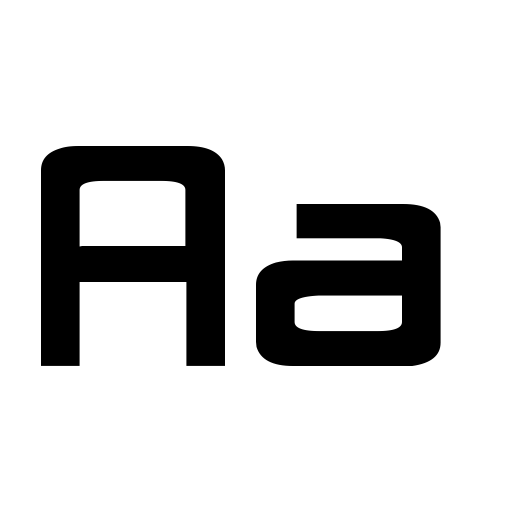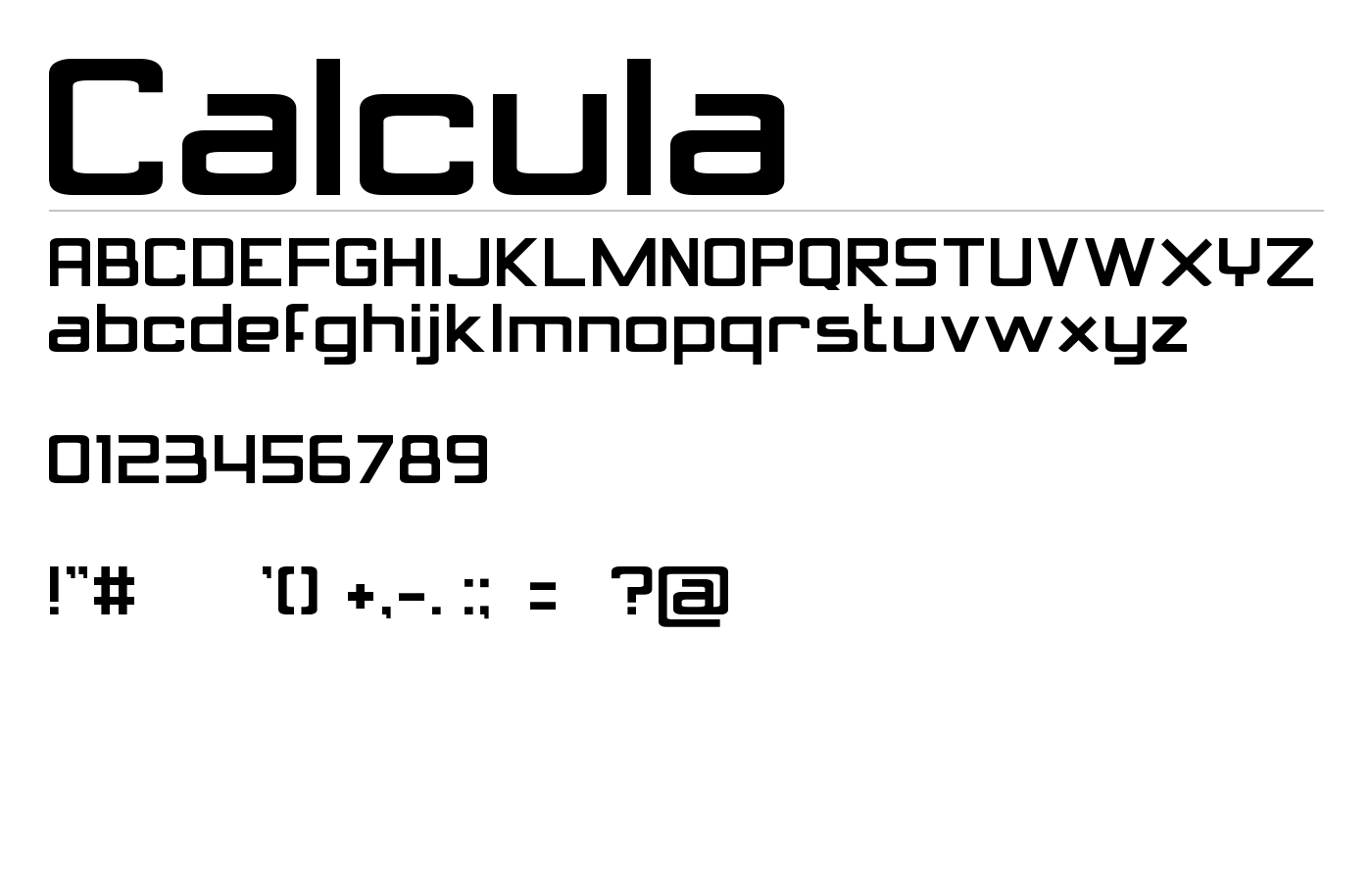
Calcula is a modern sans serif font with a technical, geometric design, characterized by its consistent stroke weight and rectangular shapes. Its clean, monoline letters with squared corners and slightly condensed forms give it a precise, machine-like feel, making it ideal for tech branding, digital interfaces, or futuristic themes. This font works well for headlines and logos where clarity and a contemporary aesthetic are important.
Calcula Font
About Calcula Font